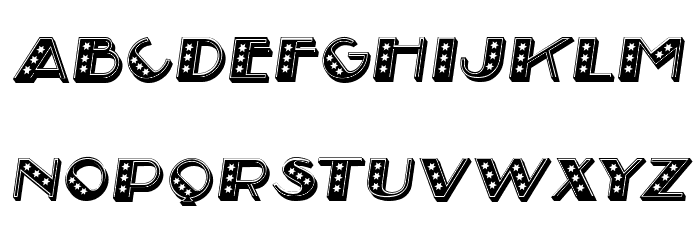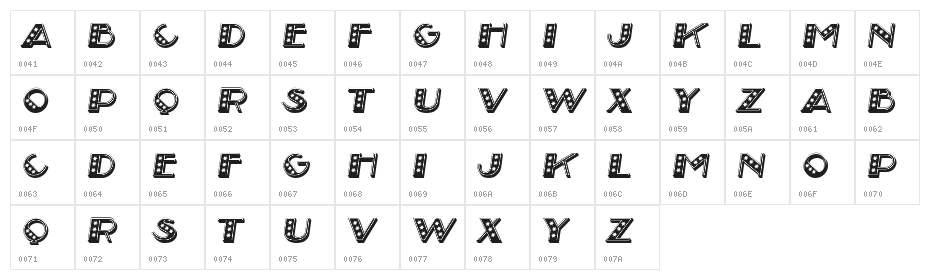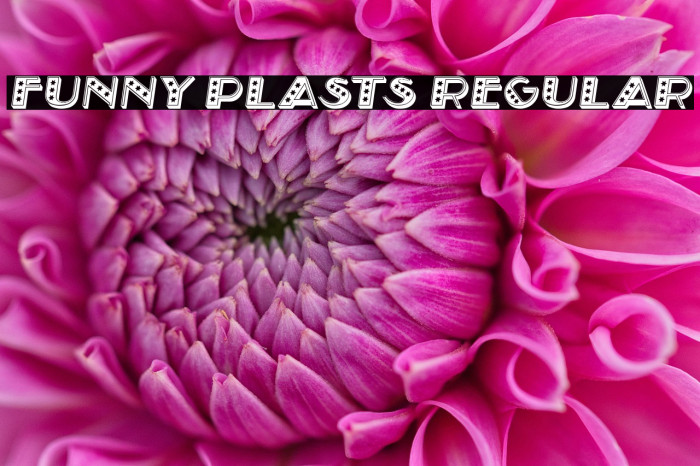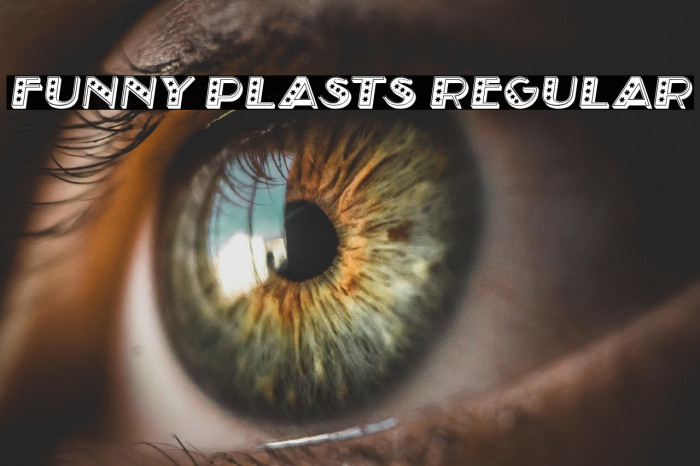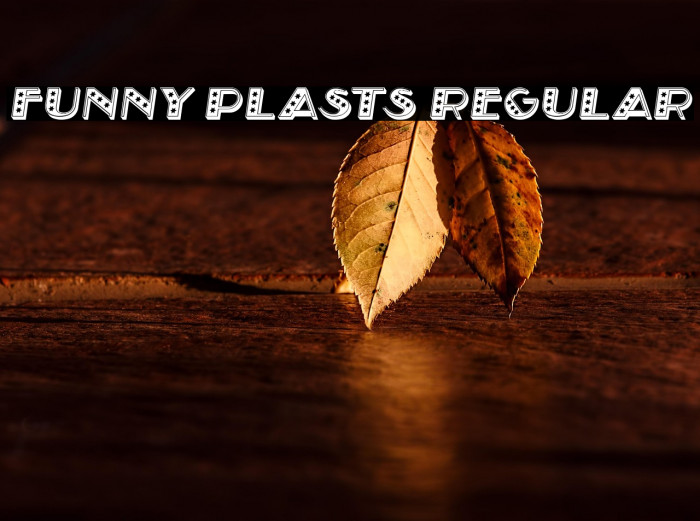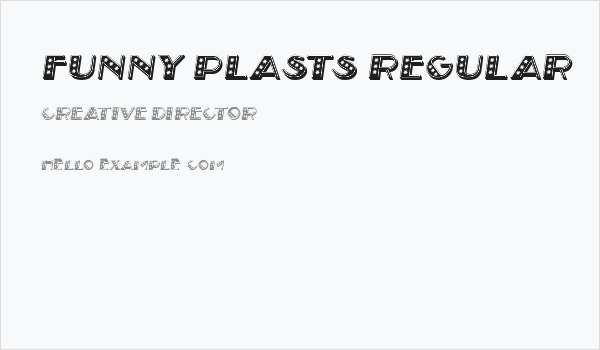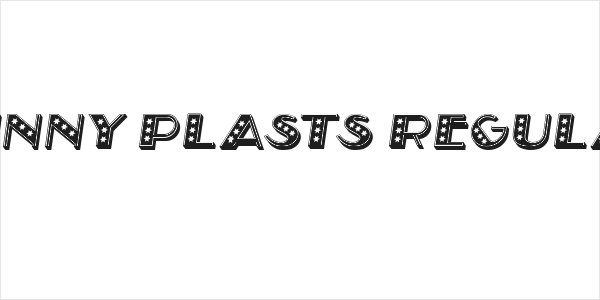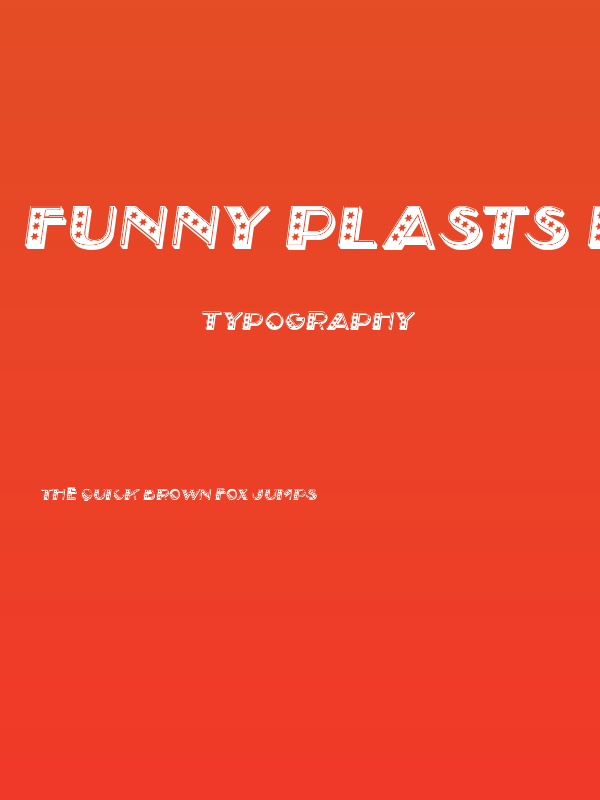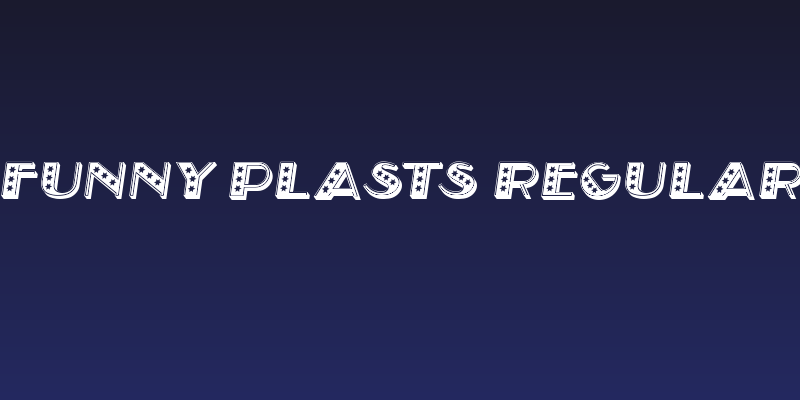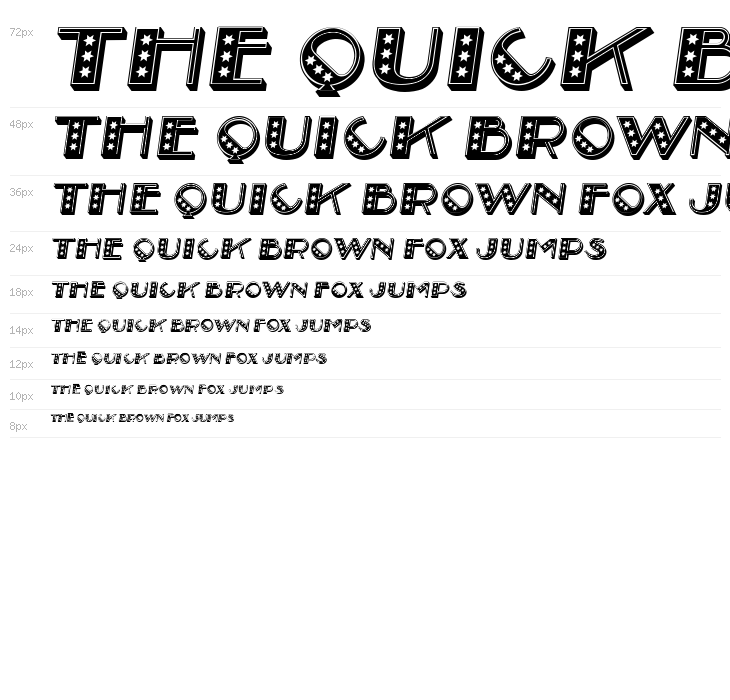
Funny Plasts Regular Font
Funny Plasts Regular Description
This font features a playful and decorative style, characterized by bold, blocky letters filled with star patterns. The design is reminiscent of a circus or carnival theme, with a strong visual impact due to its unique pattern and bold outlines. Each character is crafted with a sense of fun and whimsy, making it ideal for projects that require a lively and eye-catching typeface. The uppercase letters are uniform in height, and the overall design maintains a consistent width, contributing to a balanced and cohesive appearance. The font's decorative elements make it stand out, ensuring that any text set in this style will capture attention.
| Proposed Projects | Ideal for children's party invitations, circus-themed posters, playful branding, and any project needing a fun, eye-catching typeface. |